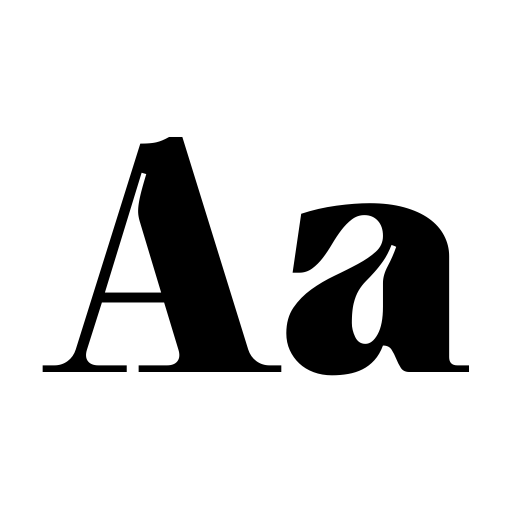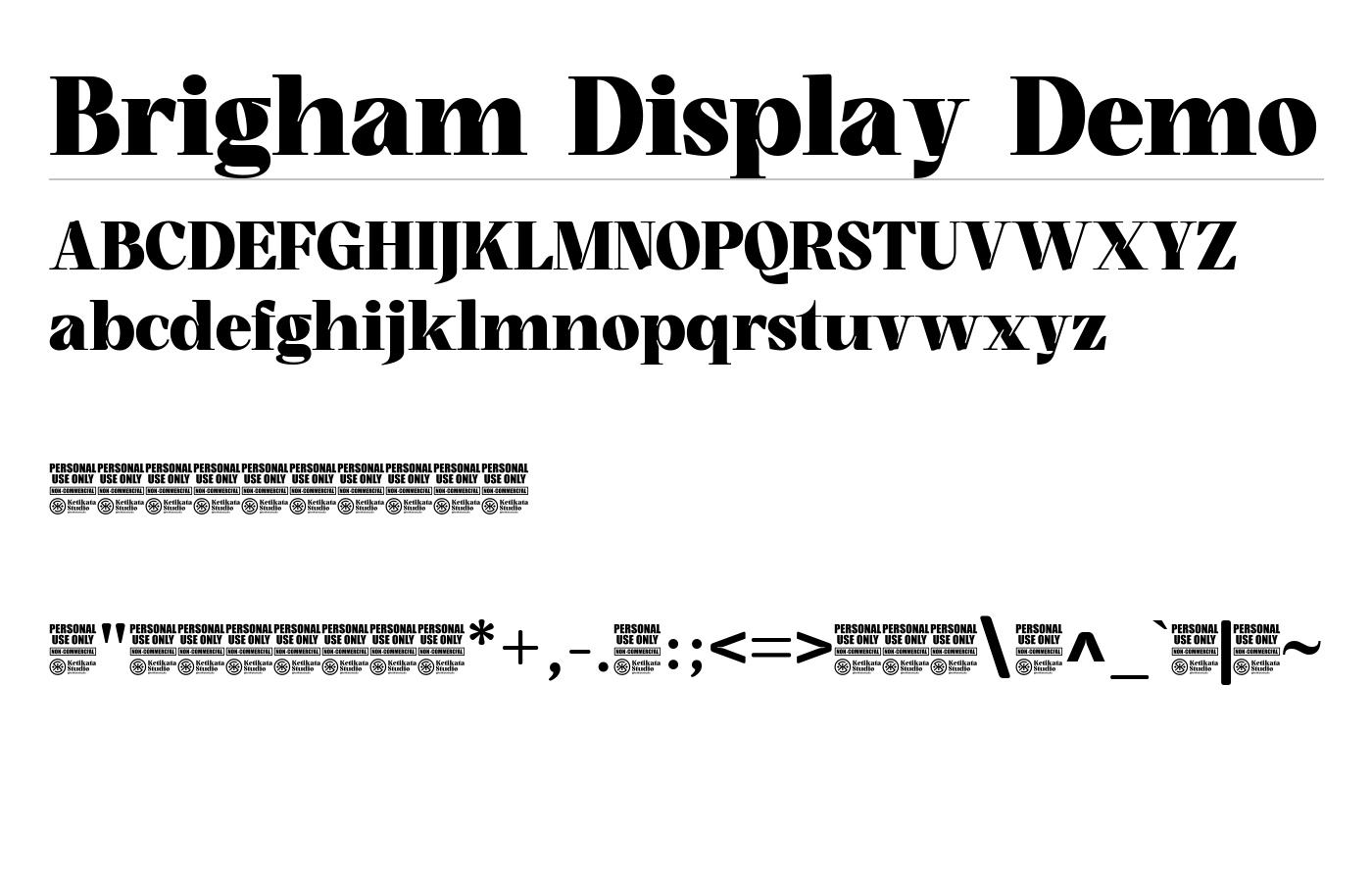
Brigham Display is a bold serif font characterized by strong contrast between thick and thin strokes, sharp unbracketed serifs, and a striking modern flair with a slightly condensed width. Its elegant, high-impact letterforms make it ideal for sophisticated branding, headlines, and editorial use where a confident and stylish presence is desired. This font works exceptionally well in luxury, fashion, and display contexts, delivering a timeless yet contemporary statement.
Brigham Display Font
About Brigham Display Font